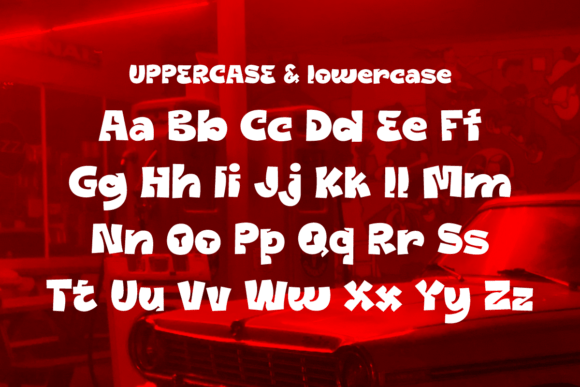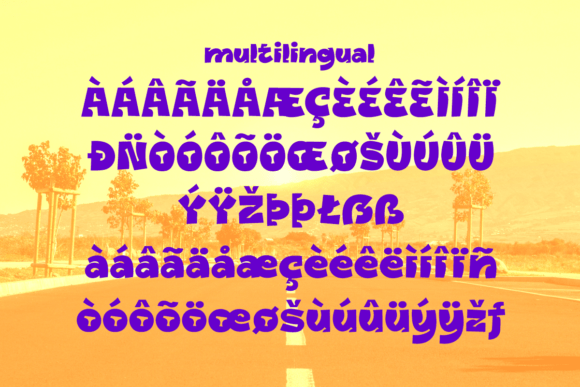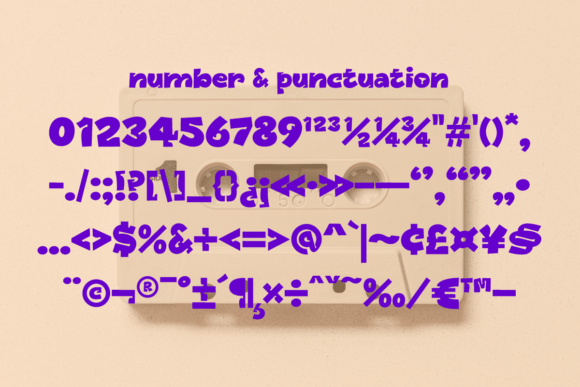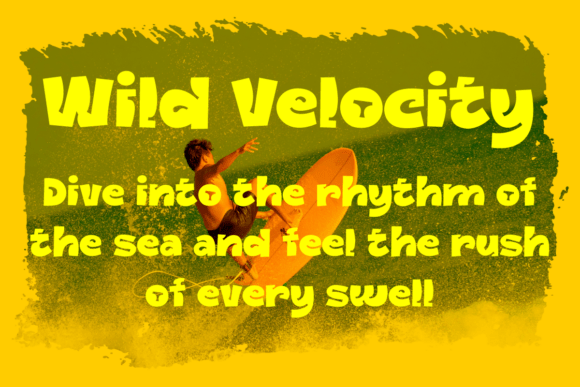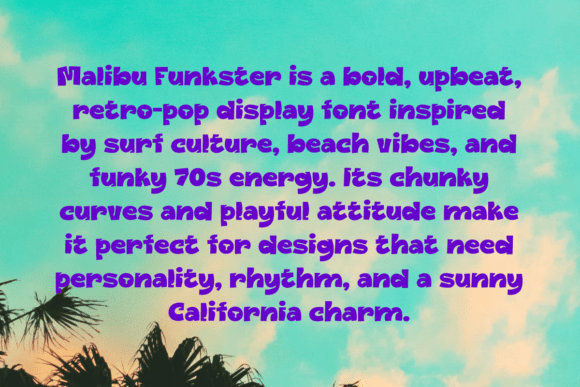
Introduction to Malibu Funkster Font
Malibu Funkster is a bold, upbeat, retro-pop display font inspired by surf culture, beach vibes, and funky 70s energy.
Its chunky curves and playful attitude make it perfect for designs that need personality, rhythm, and a sunny California charm This font blends carefree lettering with a stylish, modern twistโgreat for branding, posters, merchandise, packaging, album art, summer campaigns, retro titles, and anything that wants to feel fun, energetic, and unforgettable.
Key Features of Malibu Funkster Font
Why Choose Malibu Funkster Font?